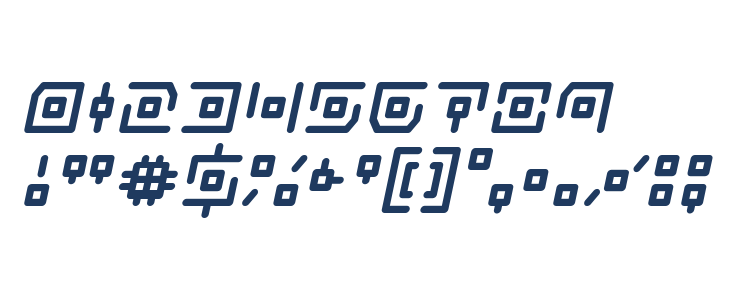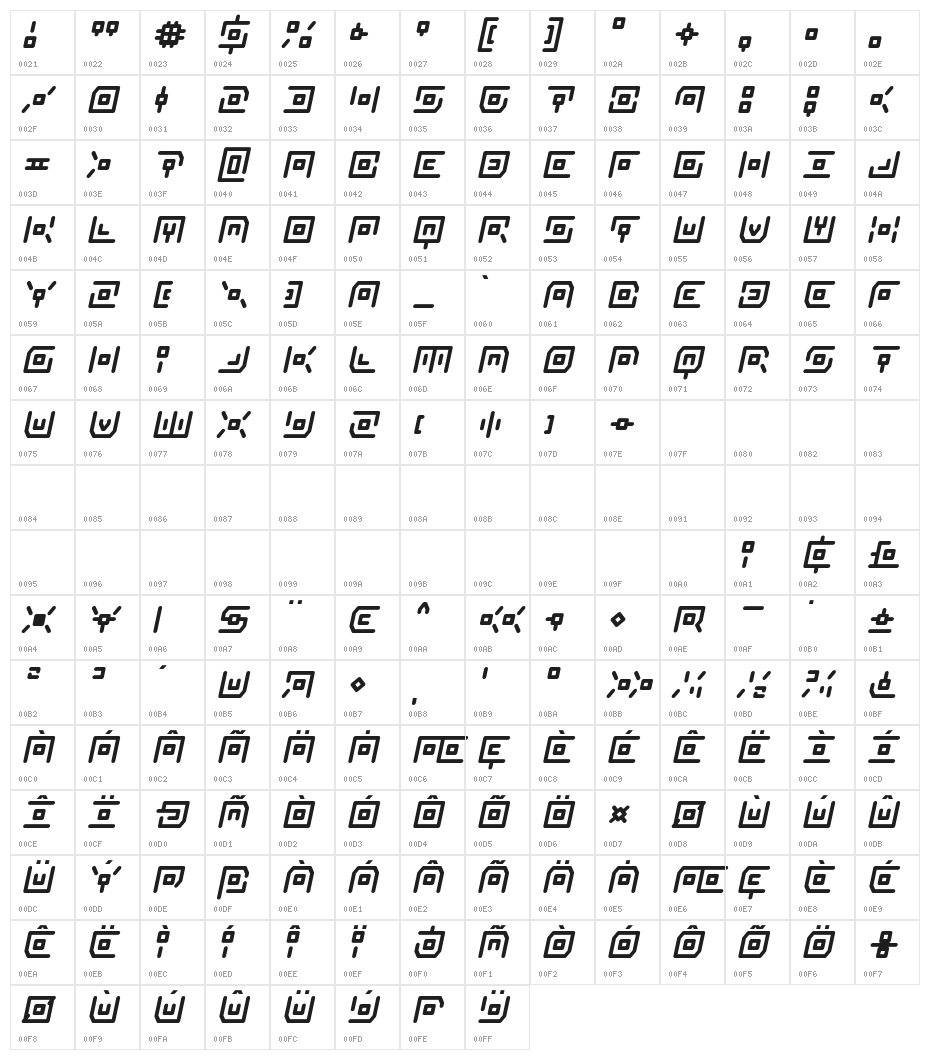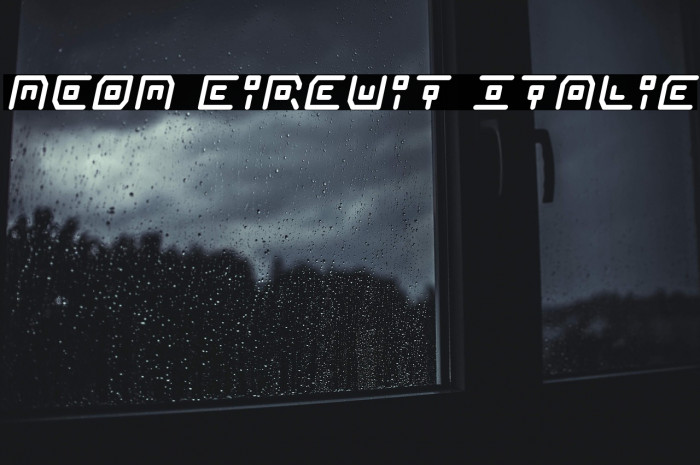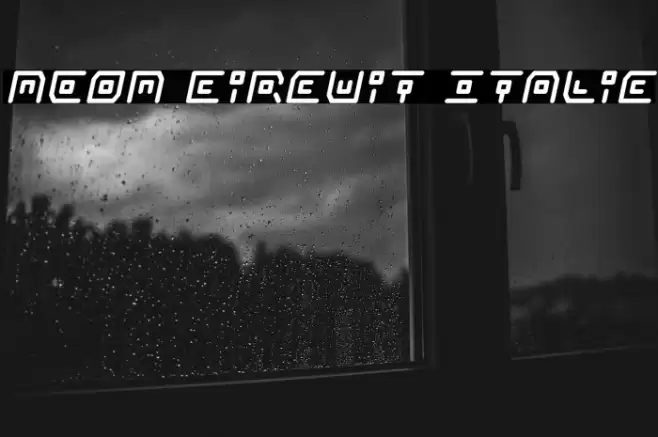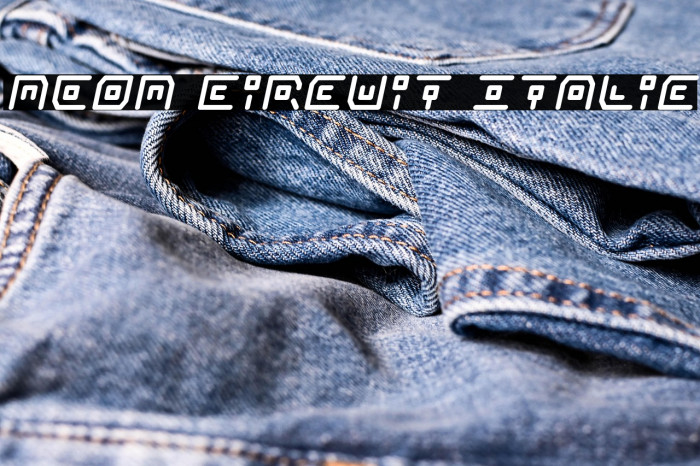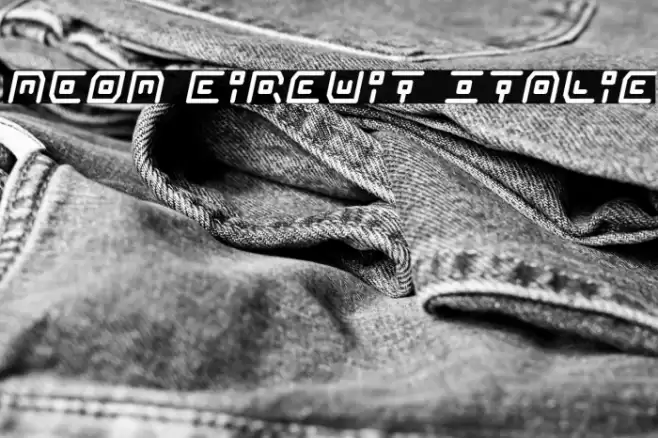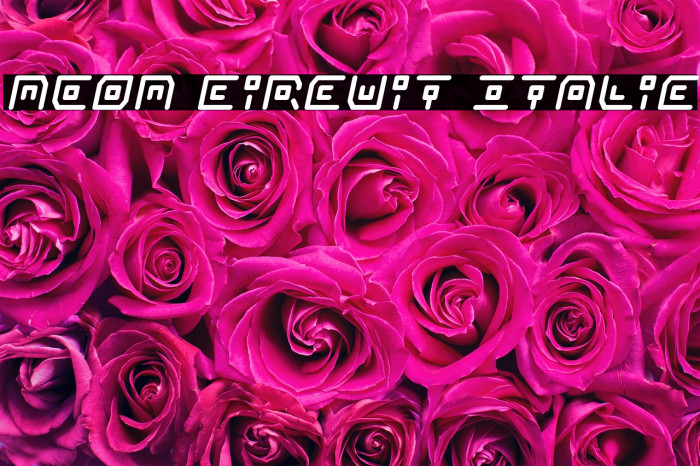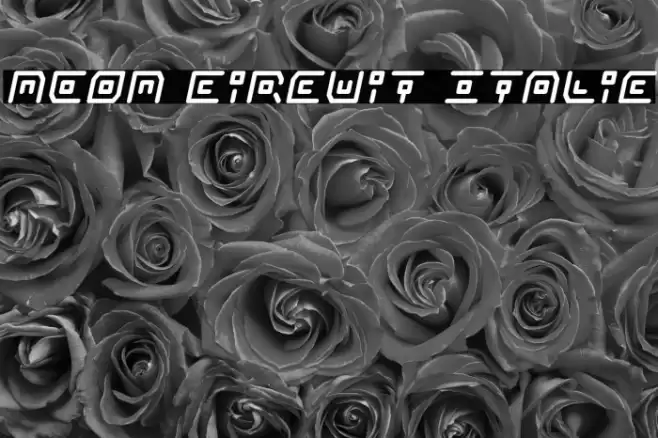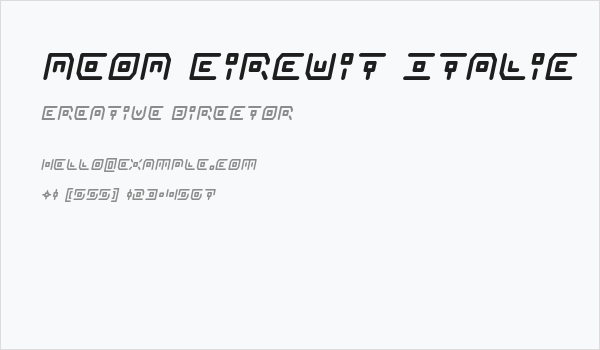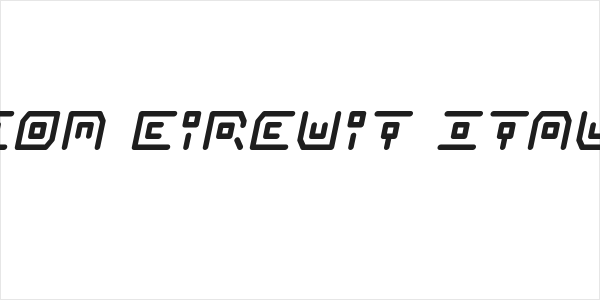
Neon Circuit Italic Font
Neon Circuit Italic Description
This font features a futuristic and digital aesthetic, reminiscent of neon lights and circuit patterns. The characters are composed of geometric shapes with sharp angles and consistent line thickness, giving it a sleek and modern appearance. The italic style adds a dynamic and forward-leaning motion to the text, enhancing its technological vibe. The font is highly stylized, making it ideal for projects that require a distinctive and eye-catching look. Its unique design is suitable for digital interfaces, tech-related branding, and creative projects that aim to convey innovation and modernity.
| Proposed Projects | Ideal for tech branding, digital interfaces, sci-fi themed designs, and innovative product packaging. |